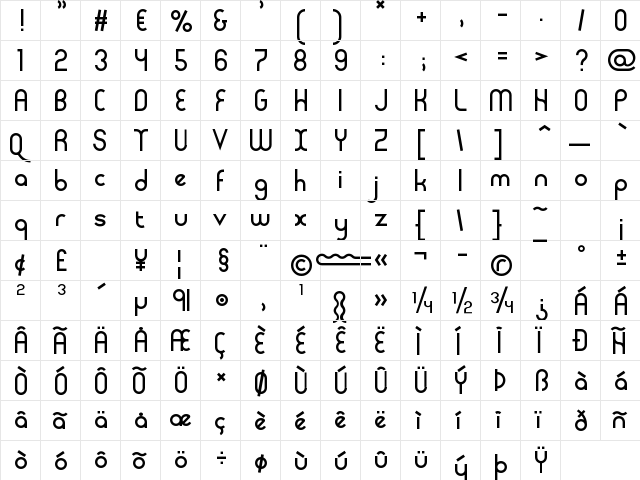
ex2 Regular Font Preview
ex2 Regular
ex2 Regular Font Details
Design Context for ex2 Typeface
ex2 takes a measured approach to typography — its balanced proportions and neutral character make it a reliable workhorse for both digital and print work.